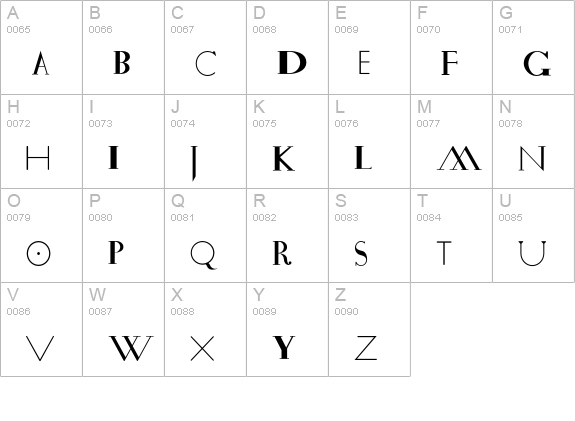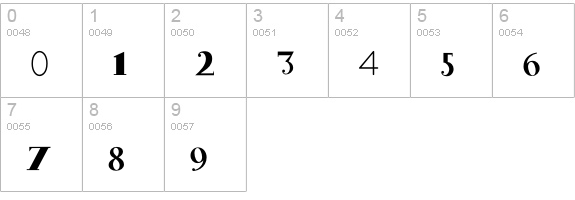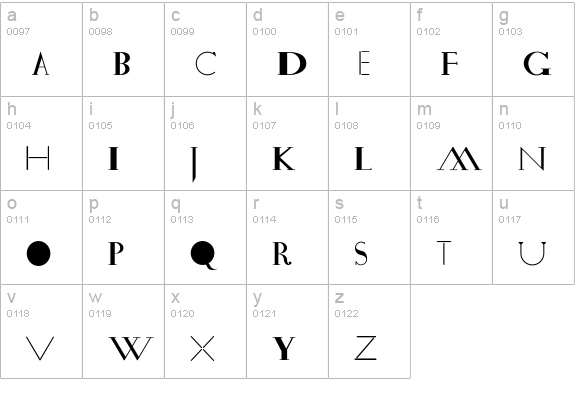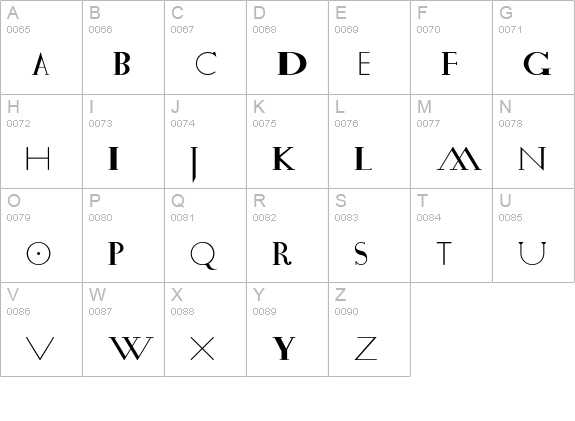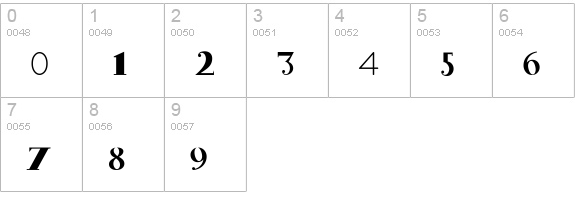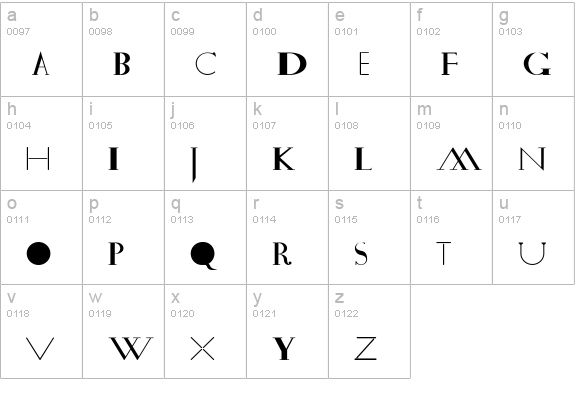
DroneBold Font Details
DroneBold font is a sleek and modern typeface that exudes confidence and boldness. With its sharp lines and strong presence, DroneBold is perfect for making a statement in any design project. This versatile font can be used for headlines, logos, posters, and more, adding a touch of sophistication and style. The best part? DroneBold is completely free to download at FontsMarket.com, making it accessible to all designers looking to elevate their work with a powerful and impactful font. Don't miss out on this opportunity to add DroneBold to your font collection and take your designs to the next level.